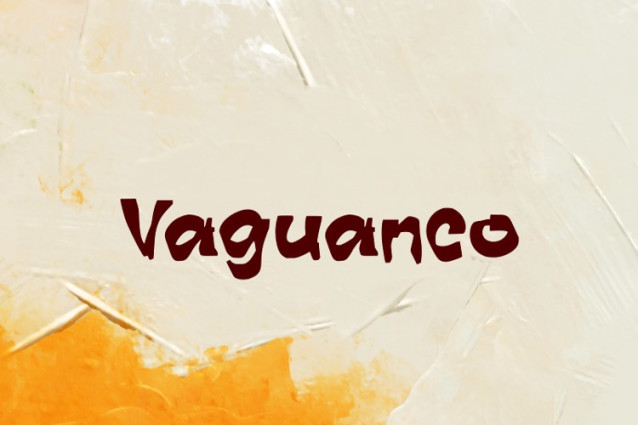
Vaguanco Font
Vaguanco Font is a chunky, comic, and cartoon display font. With its neat and joyful personality, this font will enhance any project you wish to create!